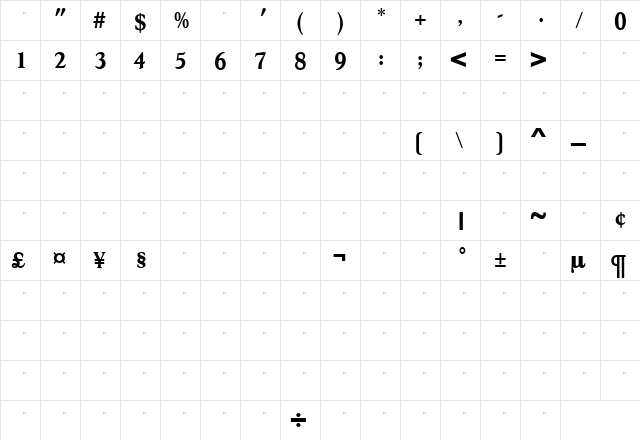
HessOSBoldTab Regular
Design Context for HessOSBoldTab Typeface
HessOSBoldTab offers clean, dependable letterforms without strong stylistic allegiance, making it a practical choice for designers who need flexibility. Its bold stroke weight gives it real presence on the page.
Pro Tip: Use HessOSBoldTab in both headline and body roles to test its range before committing to a single application.